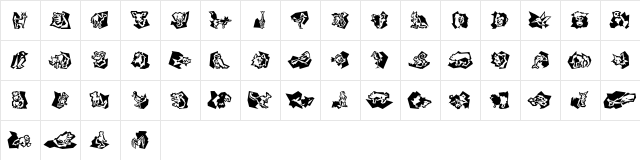
NatureMixICG Regular
Design Context for NatureMixICG Typeface
NatureMixICG is a composed and adaptable typeface that performs quietly and consistently across a wide range of design contexts.